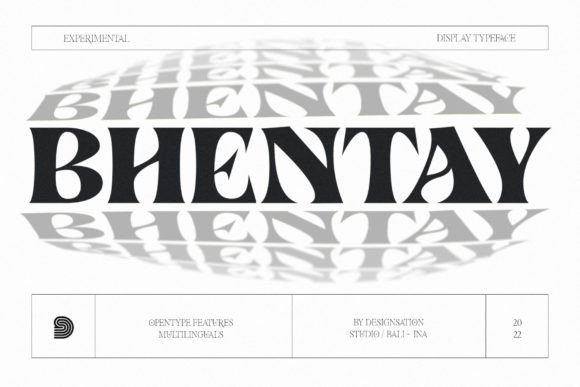
Get ready to make a bold statement with Bhentay Font, the ultimate display font for businesses that demand attention. Designed by the creative minds at Designsation, Bhentay is a masterpiece that will elevate your designs to new heights.
Immerse yourself in a world of typography brilliance as Bhentay's sharp edges and confident curves dance across your screens. This font is not just a collection of letters; it's a symphony of style that will captivate your audience and leave a lasting impression.
With Bhentay, you're not just downloading a font; you're acquiring a powerful tool to transform your business signage into captivating works of art. Imagine your storefront adorned with the bold strokes of Bhentay, beckoning customers to step inside and explore your offerings. Or envision your website headers and social media posts radiating with the eye-catching allure of this remarkable font.
Bhentay is more than just a font; it's an investment in your business's visual identity. Its versatility knows no bounds, making it the perfect choice for a wide range of applications, from logos and branding to packaging and marketing materials. Whether you're creating a striking poster, a captivating presentation, or an unforgettable business card, Bhentay will empower you to make a statement that resonates with your audience.